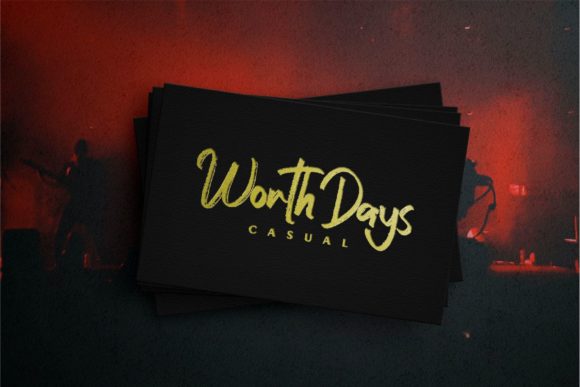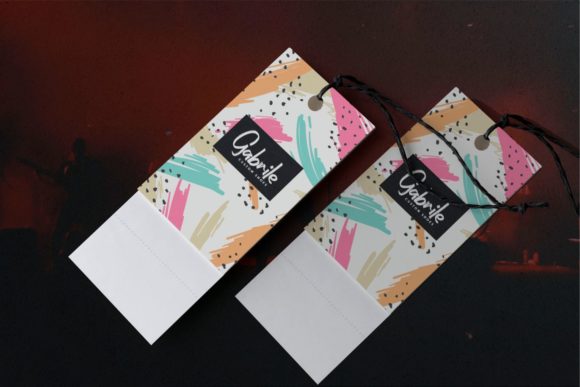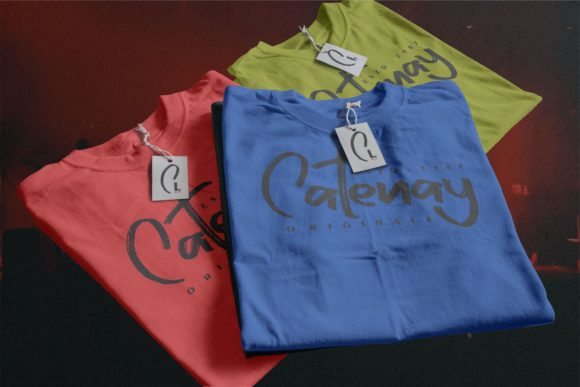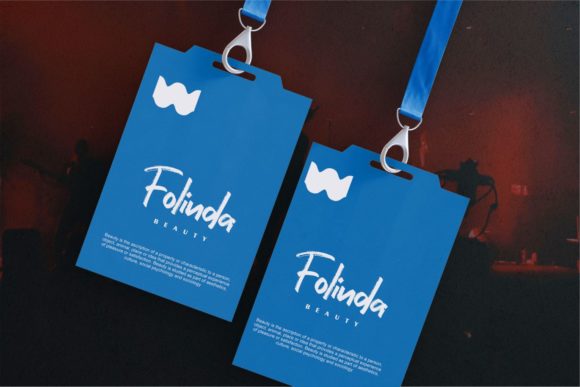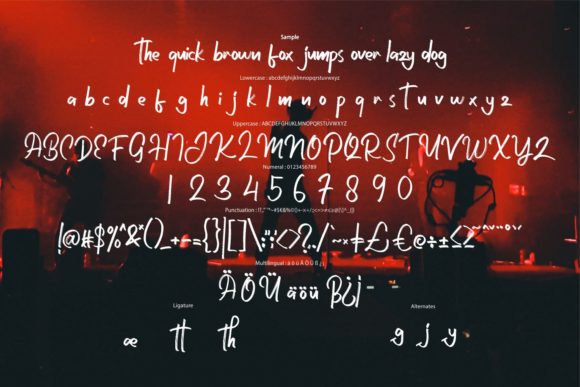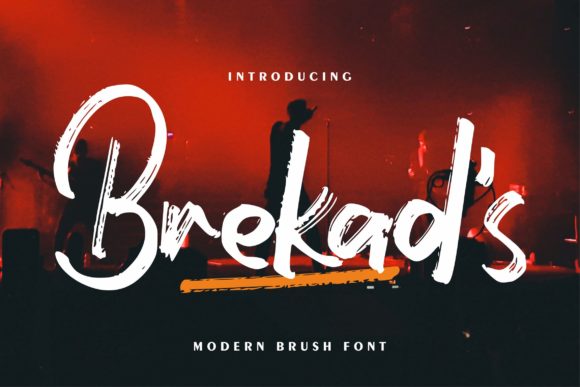
Brekad’s Font: The Bold and Brushed Display Font You Need
In the world of design, fonts play a crucial role in making your creations stand out. A good font can elevate your design, convey the right message, and leave a lasting impression on your audience. If you’re a designer or crafter looking for a font that exudes boldness and trendiness, look no further than Brekad’s Font. In this article, we’ll dive into the world of Brekad’s Font, exploring its features, benefits, and uses.
What is Brekad’s Font?
Brekad’s is a bold, brushed display font that is sure to make your designs pop. With its thick lettering and trendy vibe, this font is perfect for designers and crafters who want to add a touch of edginess to their creations. Whether you’re working on a logo, poster, or social media graphic, Brekad’s Font is the perfect choice.
Key Features of Brekad’s Font
- Bold and Brushed: Brekad’s Font features bold, brushed strokes that give it a unique and eye-catching look.
- Thick Lettering: The font’s thick lettering makes it perfect for display purposes, ensuring that your text stands out from the crowd.
- Trendy: Brekad’s Font has a trendy vibe that’s perfect for designers and crafters who want to stay on top of the latest design trends.
- Versatile: This font can be used for a variety of design projects, from logos and posters to social media graphics and more.
Benefits of Using Brekad’s Font
So, why should you choose Brekad’s Font for your design projects? Here are just a few benefits of using this amazing font:
- Instant Recognition: The bold, brushed strokes of Brekad’s Font make it instantly recognizable, ensuring that your designs grab the attention of your audience.
- Professional Look: Despite its bold and trendy vibe, Brekad’s Font has a professional look that’s perfect for businesses and brands.
- Easy to Read: The thick lettering and clear design of Brekad’s Font make it easy to read, even at small sizes.
- Customizable: Brekad’s Font can be customized to fit your design needs, allowing you to adjust the size, color, and more.
Uses of Brekad’s Font
Brekad’s Font is a versatile font that can be used for a variety of design projects. Here are just a few ideas to get you started:
- Logos: Use Brekad’s Font to create a bold and eye-catching logo that stands out from the crowd.
- Posters: Create stunning posters with Brekad’s Font, perfect for advertising, promotions, and more.
- Social Media Graphics: Use Brekad’s Font to create social media graphics that grab the attention of your audience.
- Business Cards: Add a touch of professionalism to your business cards with Brekad’s Font.
Tips for Using Brekad’s Font
Here are a few tips for getting the most out of Brekad’s Font:
- Use it Sparingly: Brekad’s Font is bold and eye-catching, so use it sparingly to avoid overwhelming your design.
- Pair it with Other Fonts: Experiment with pairing Brekad’s Font with other fonts to create a unique and visually appealing design.
- Adjust the Size: Adjust the size of Brekad’s Font to fit your design needs, ensuring that it’s easy to read and visually appealing.
Brekad’s Font is a bold, brushed display font that’s perfect for designers and crafters who want to add a touch of edginess to their creations. With its thick lettering, trendy vibe, and versatility, this font is sure to make your designs stand out. Whether you’re working on a logo, poster, or social media graphic, Brekad’s Font is the perfect choice. So why wait? Download Brekad’s Font today and start creating stunning designs that grab the attention of your audience!